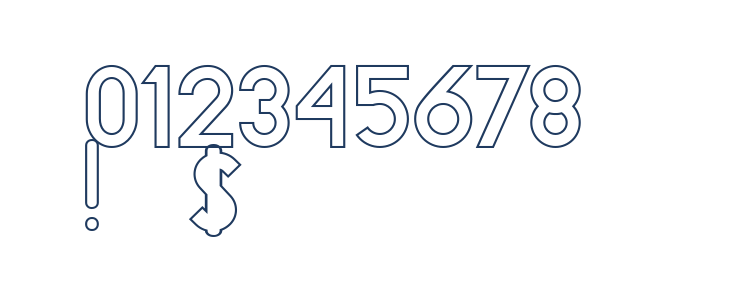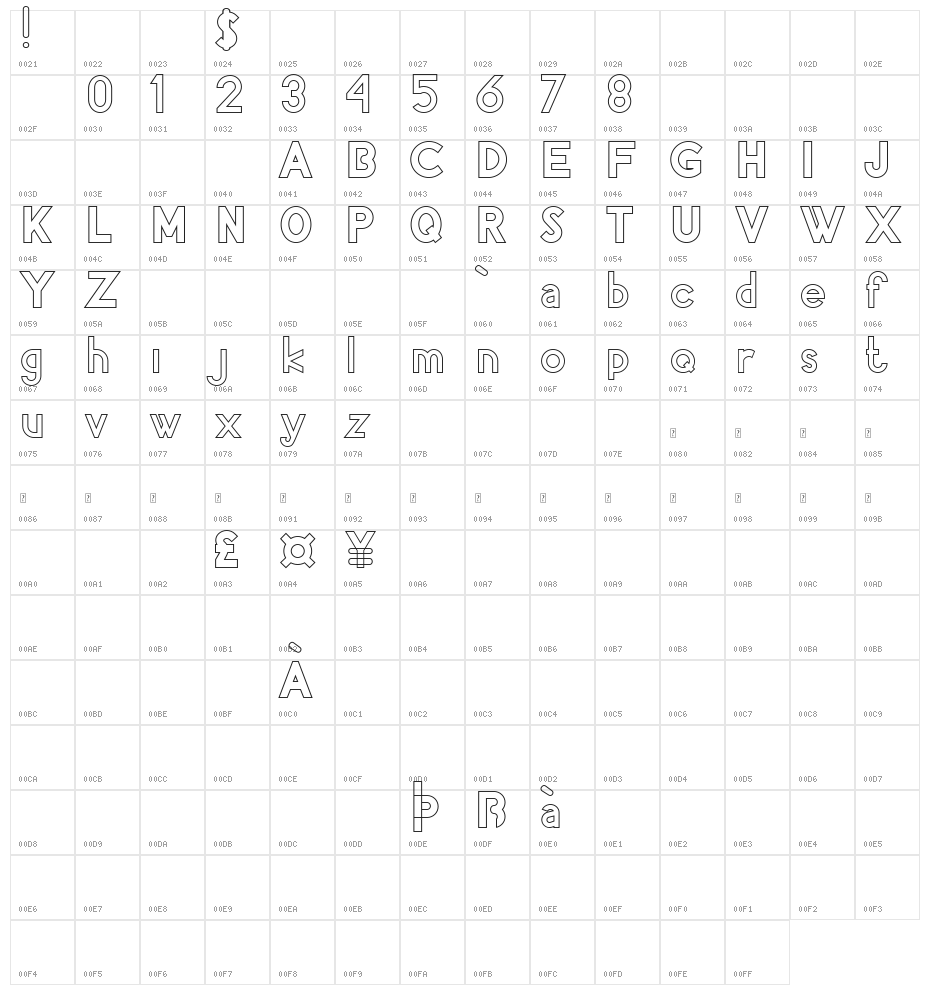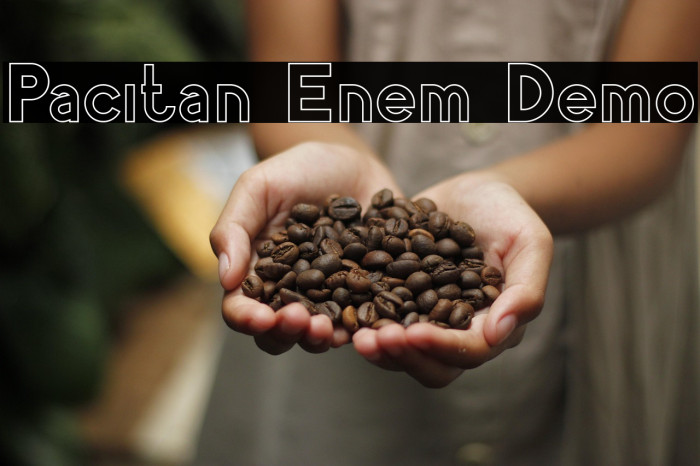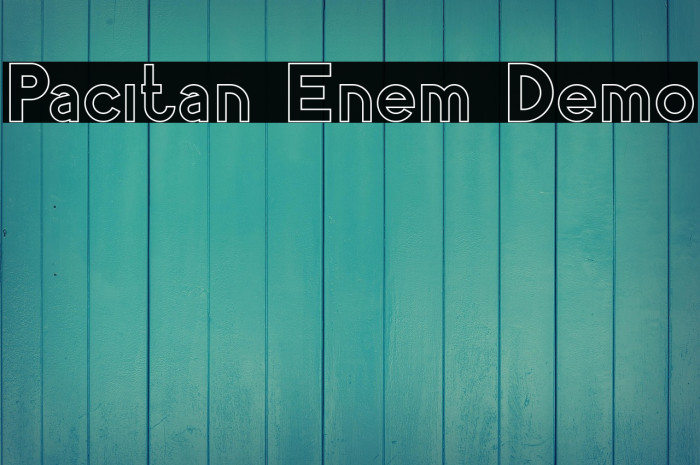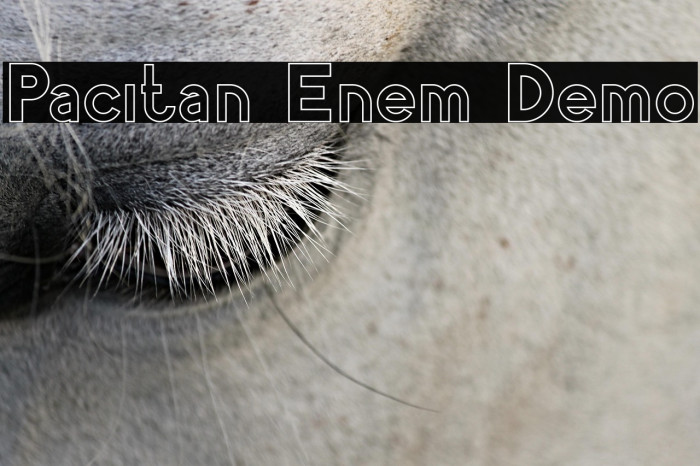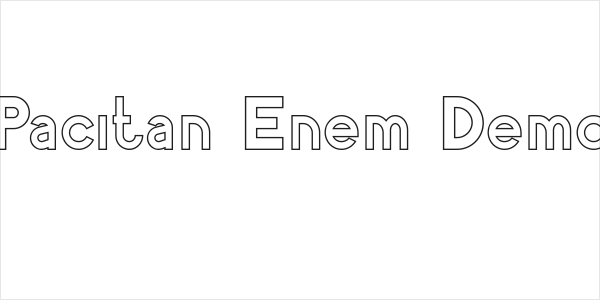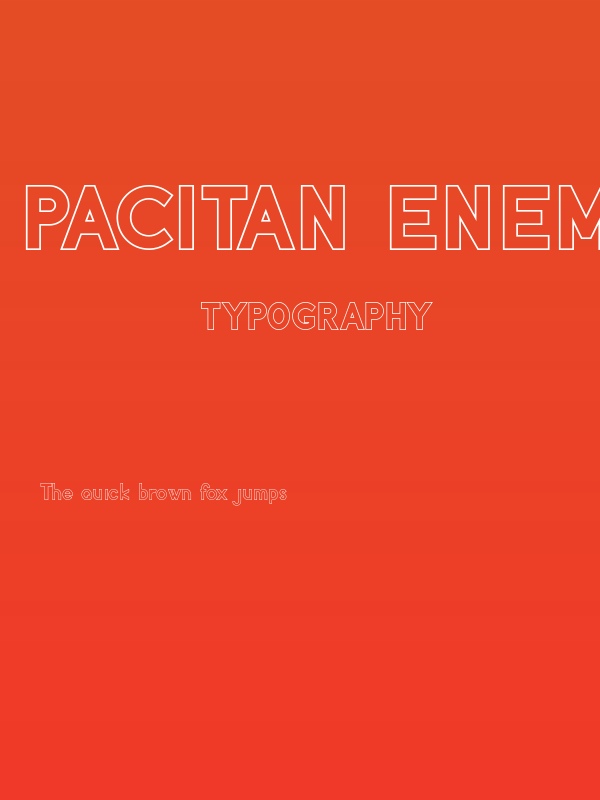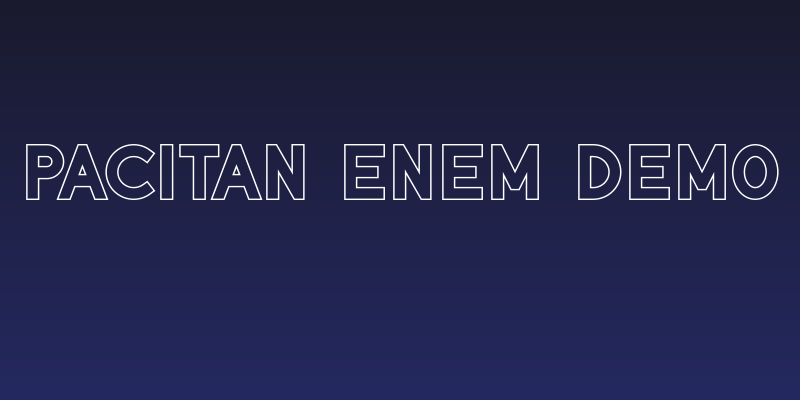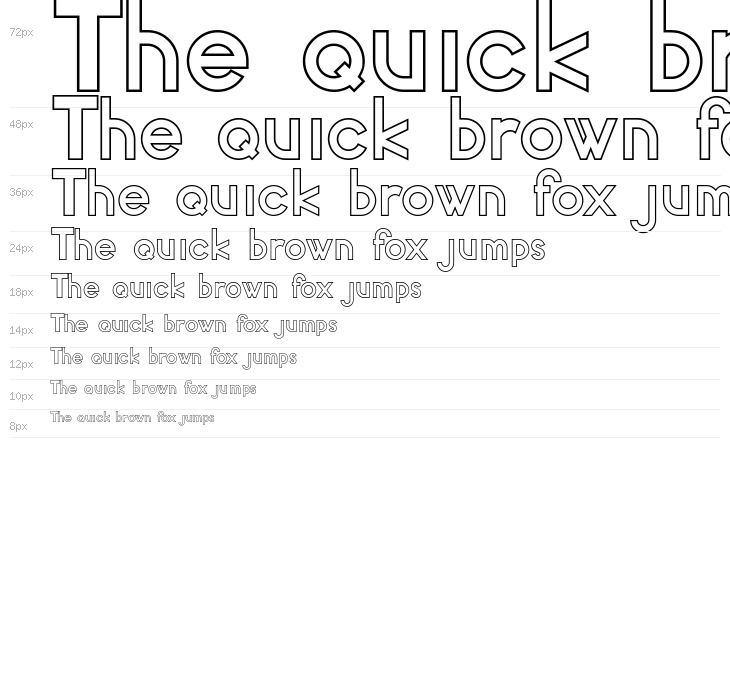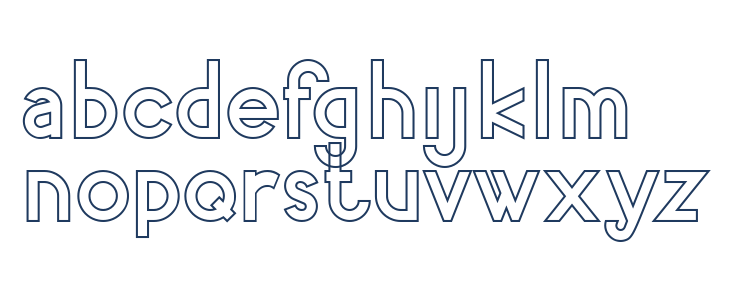
Pacitan Enem Demo Font
Pacitan Enem Demo Description
This font features a bold, outlined style with clean, geometric shapes. The characters are uppercase and lowercase letters, numerals, and a selection of special characters. The design is modern and minimalistic, with a focus on clarity and readability. The strokes are uniform in width, creating a cohesive and structured appearance. The font's open and airy design makes it suitable for various applications, from digital media to print. Its versatility is enhanced by the clear distinction between each character, making it ideal for headlines and titles.